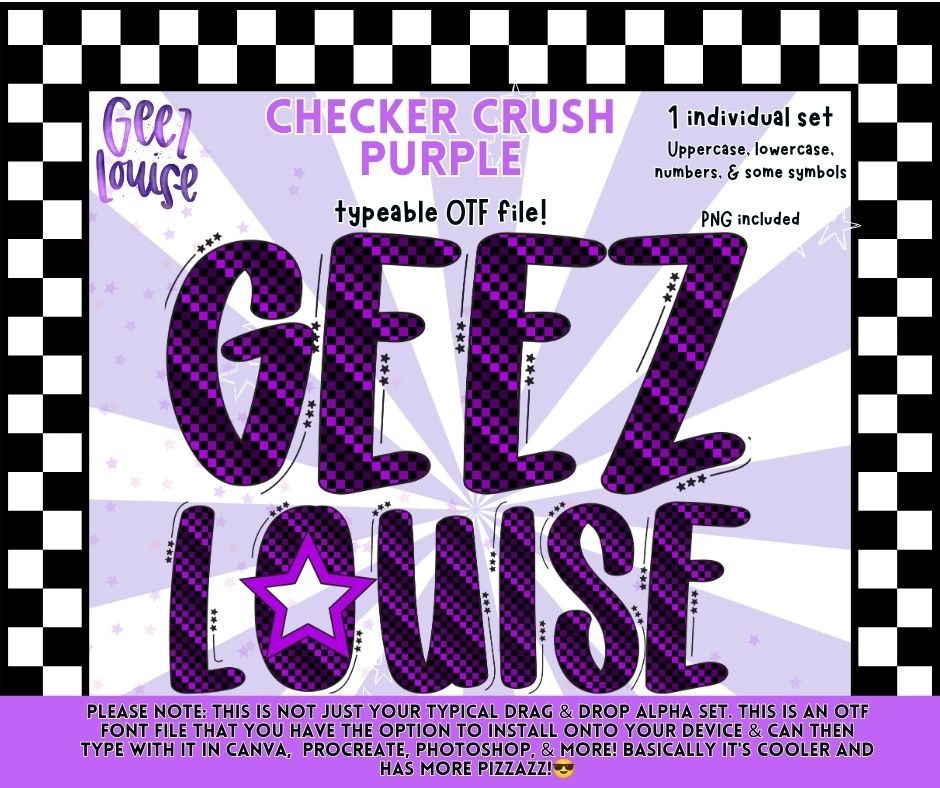
Checker Crush Font | Retro Checkerboard OTF & PNG Alphabet | Uppercase, Lowercase, Numbers & Symbols
🧡🖤 Bring bold retro vibes to your projects with Checker Crush, a fun and playful checkerboard font perfect for spooky season, sports designs, and trendy creations!